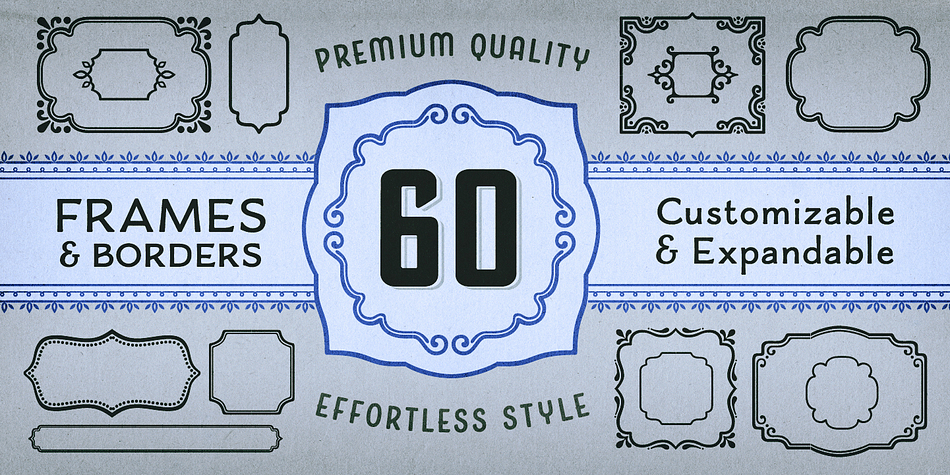
Boucherie Frames
Boucherie Frames is a dingbat font published by Laura Worthington.
Boucherie Frames is part of the Boucherie Collection – a series of 16 distinct, yet related typefaces.
Modular borders, corners, decorations, and cartouches let you wrap virtually anything you like in a decorative frame — that of course works perfectly with Boucherie’s typefaces.